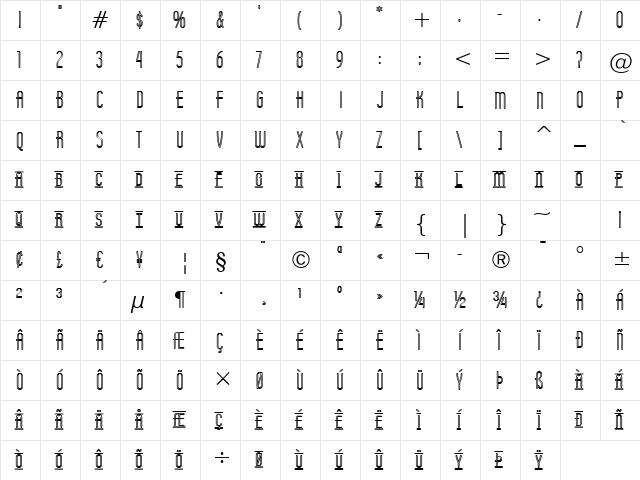
Operator Nine BTN Inline Lined Regular
Design Context for Operator Nine BTN Inline Lined Typeface
Operator Nine BTN Inline Lined is built around its visual character rather than neutral utility — its distinctive forms are designed to make an impression at display sizes.
Font Pairing: Pair with a clean neutral sans-serif for body copy to let Operator Nine BTN Inline Lined's character lead without overwhelming the composition.
Pro Tip: Use Operator Nine BTN Inline Lined exclusively at display sizes — it was designed to be seen, not read at length. Let a neutral companion handle body copy.